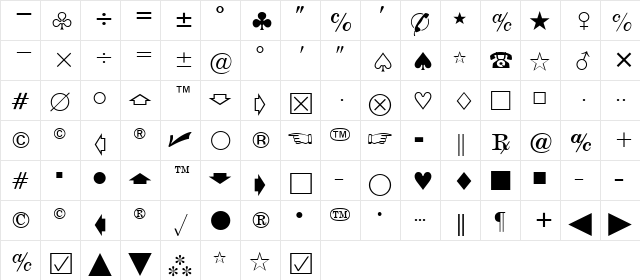
Universal Medium
Design Context for Universal Typeface
Universal is a composed and adaptable typeface that performs quietly and consistently across a wide range of design contexts.
Pro Tip: Use Universal in both headline and body roles to test its range before committing to a single application.